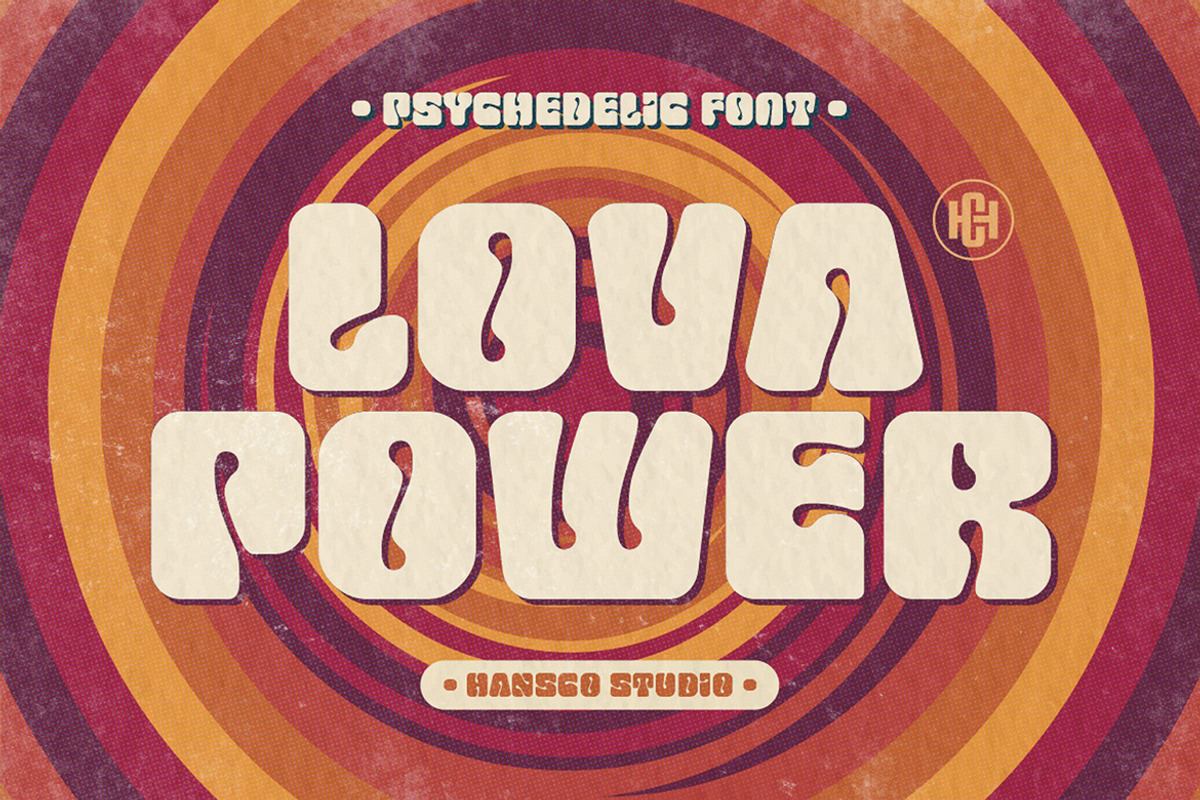
Lova Power - Psychedelic Font Free Download
You must purchase this font for commercial use. However, you can download Lova Power - Psychedelic Font Free Download for testing purposes. Lova Power is a bold and energetic psychedelic font designed to capture the vibrant, retro aesthetics of the 60s and 70s. With its distorted, playful letterforms and high-impact style, this font is perfect for projects that need a groovy, fun, and unique touch, such as posters, event branding, album covers, and social media content.
The exaggerated curves and colorful vibe of Lova Power make it ideal for designs that want to evoke the spirit of the psychedelic era while maintaining modern appeal. Whether you're creating a retro-inspired brand, working on a psychedelic music poster, or adding flair to a creative campaign, this font adds personality and visual excitement to your typography.